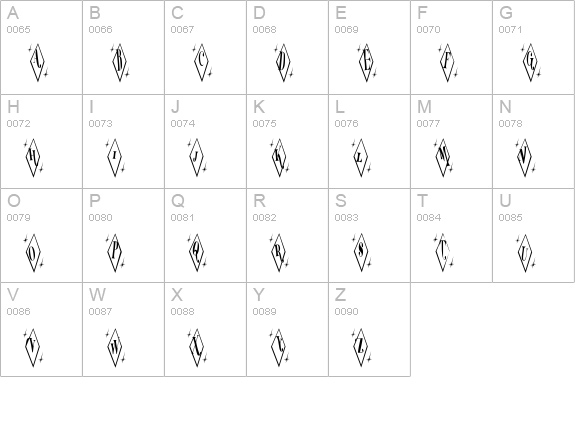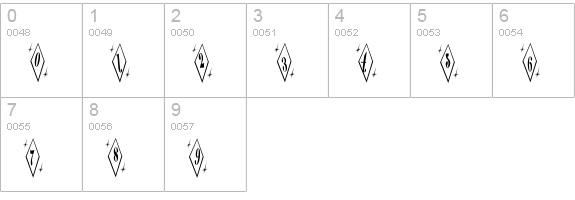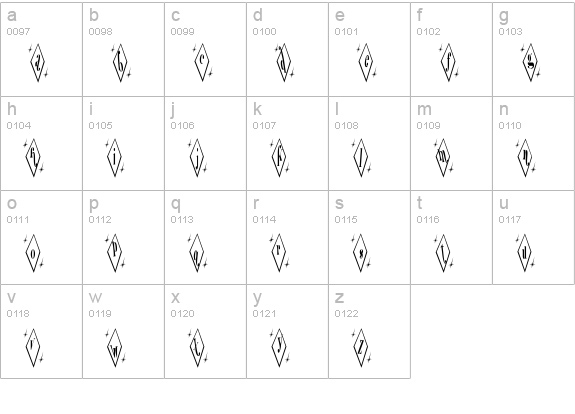
Terylene Top Font Details
Terylene Top font is a stunning display font that exudes elegance and sophistication. With its sleek and modern design, this font is perfect for any project that requires a touch of class and style. Whether you are designing a logo, creating a website, or working on a branding project, Terylene Top font will surely make a lasting impression. What sets Terylene Top font apart is not only its beautiful aesthetics but also the fact that it is freely available to download at FontsMarket.com. Yes, you read that right - this exquisite font can be yours without spending a dime. FontsMarket.com is a treasure trove for font enthusiasts, offering a wide range of high-quality fonts that are free to download and use for both personal and commercial projects. Designed with precision and attention to detail, Terylene Top font features clean lines, balanced proportions, and exquisite curves that add a touch of sophistication to any design. Its versatility allows it to be used in a variety of contexts - from fashion magazines to luxury brands, from wedding invitations to elegant signage. Whether you are a professional designer or just someone looking to add a touch of elegance to your creations, Terylene Top font is the perfect choice. Its timeless appeal and free availability make it a must-have font in your collection. So, why wait? Head over to FontsMarket.com and download Terylene Top font now, and let your creativity soar to new heights.